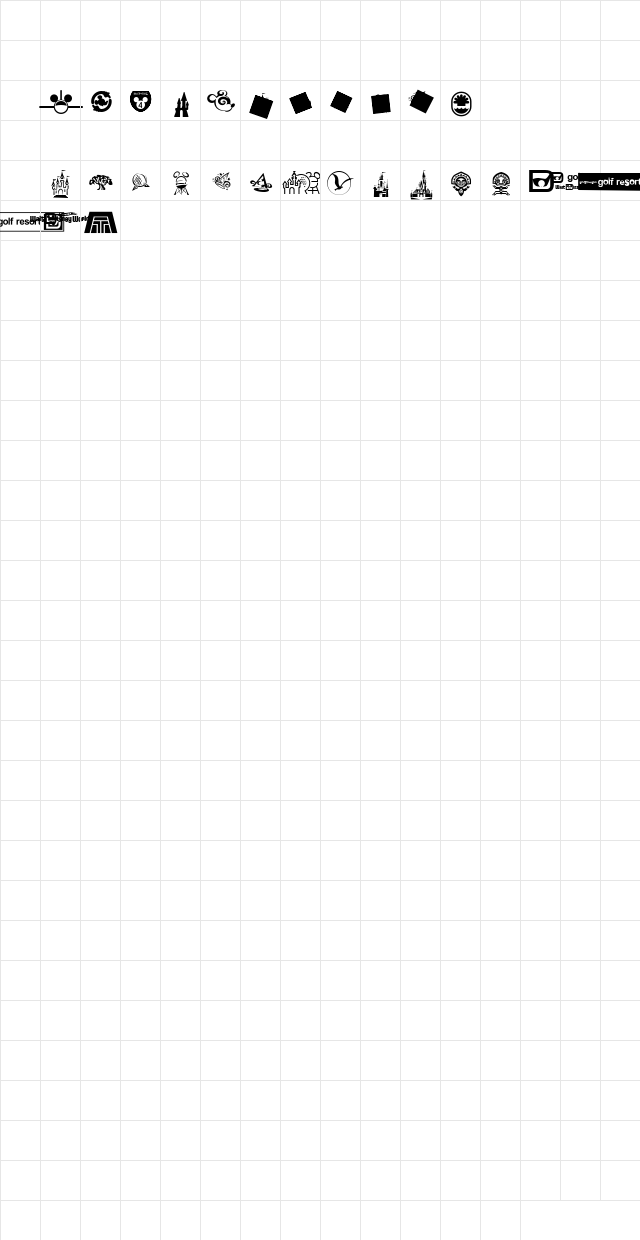
Mouse Tags Regular
Designer: Steve Ferrera
Design Context for Mouse Tags
Mouse Tags is a composed and adaptable typeface that performs quietly and consistently across a wide range of design contexts.